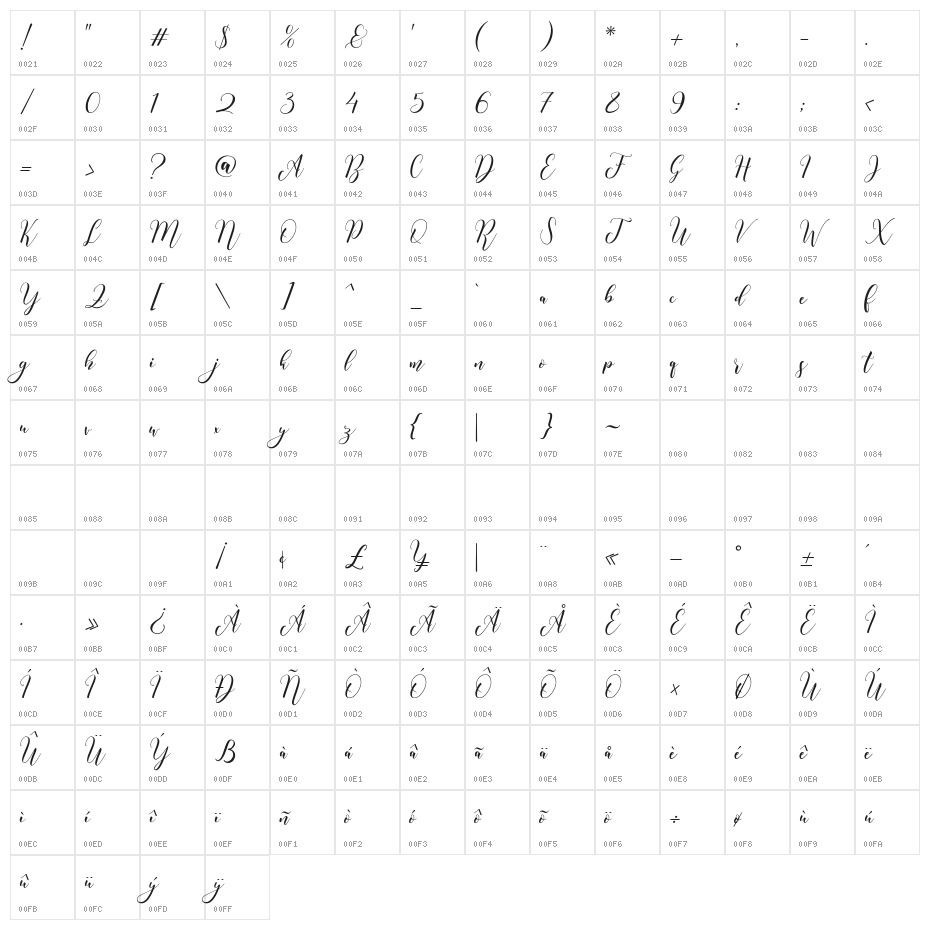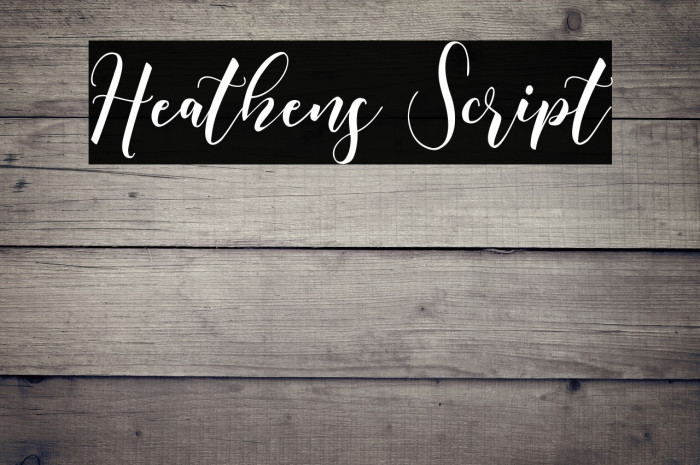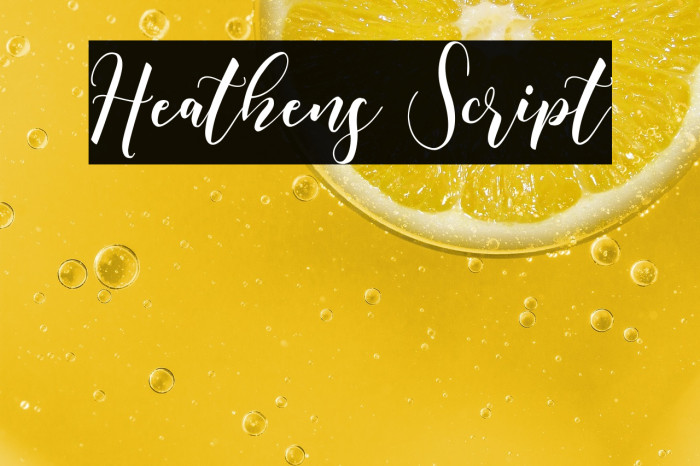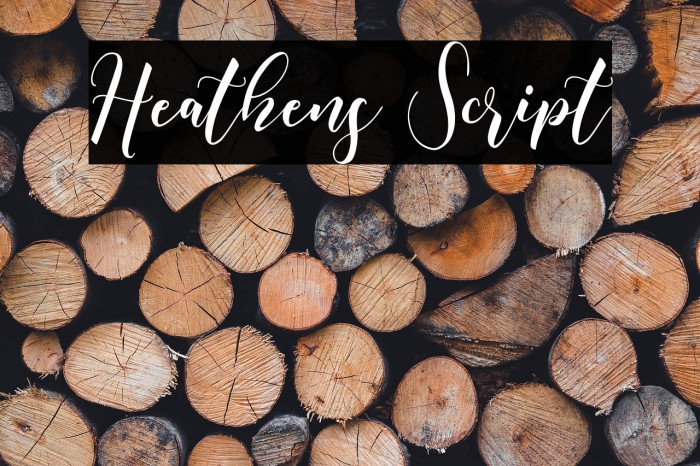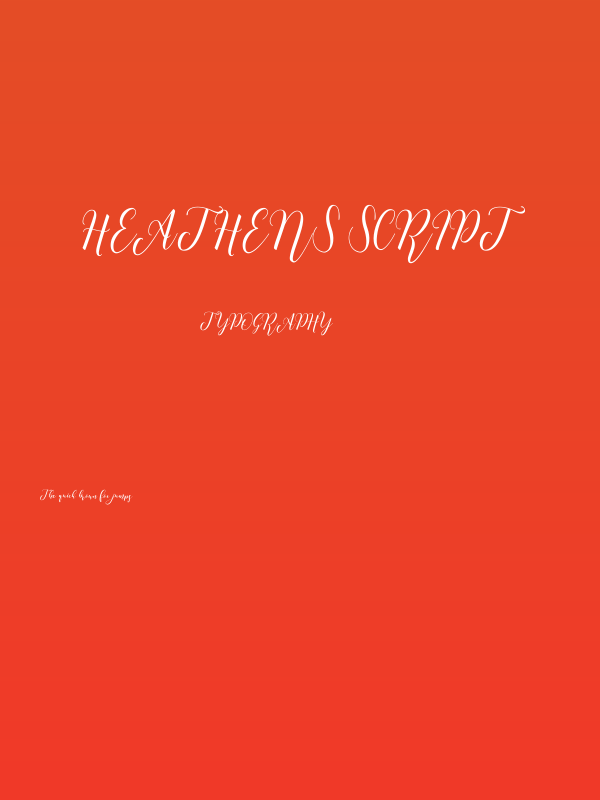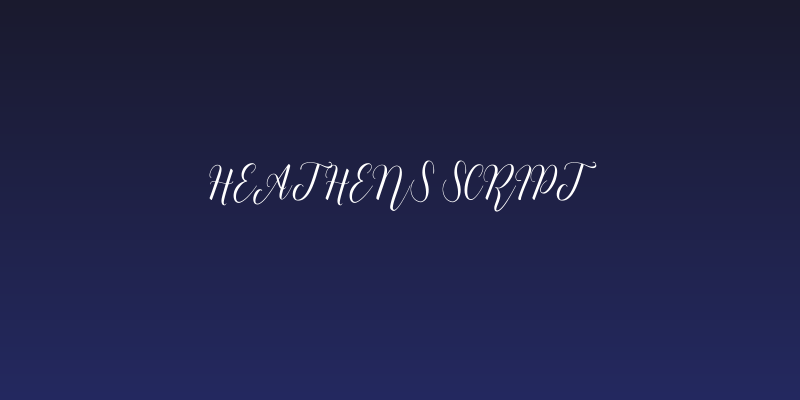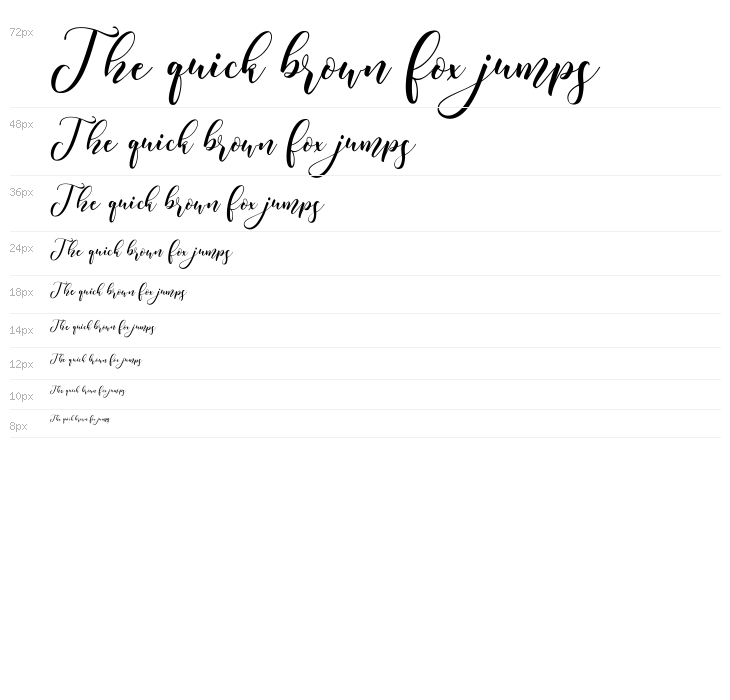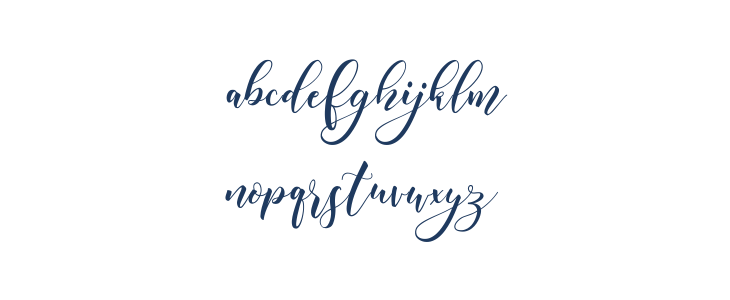
Heathens Script Font
Heathens Script Description
This elegant script font features flowing, cursive letterforms with a sophisticated and artistic flair. The uppercase letters are tall and graceful, with sweeping ascenders and descenders that add a sense of movement and fluidity. The lowercase letters maintain a consistent style, with smooth curves and delicate connections between characters. The numerals are stylish and complement the overall aesthetic, while the special characters are designed to match the font's elegant and decorative nature. This font exudes a sense of luxury and refinement, making it ideal for projects that require a touch of class and elegance.
| Overall Style | Elegant, Decorative |